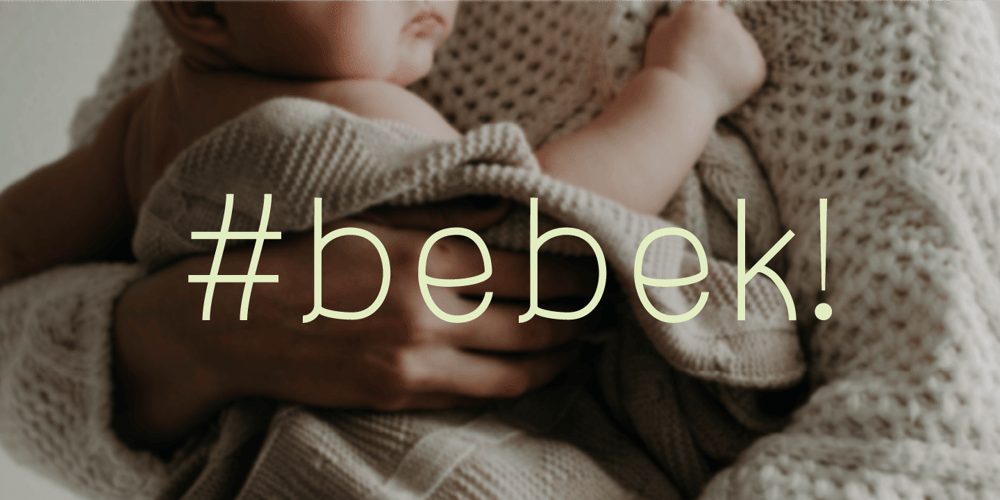
Bebek
Bebek font
Bebek Font Family was designed by Ali Güzel and published by Ali Güzel. Bebek contains 2 styles and family package options. Bebek is drawn on a classic geometric sans serif skeleton but applies baby moves. ‘Bebek’ gets its name from the Turkish word ‘baby’ because the font is as cute as a baby and full of surprises. Suggested uses: perfect for modern branding and logo design, editorial design, web design, packaging, and countless other projects;2 styles: 2 weights;Useful OpenType features: Access All Alternates, Small Capitals From Capitals, Case-Sensitive Forms, Glyph Composition / Decomposition, Denominators, Fractions, Kerning, Lining Figures, Localized Forms, Mark Positioning, Mark to Mark Positioning, Alternate Annotation Forms, Numerators, Oldstyle Figures, Ordinals, Proportional Figures, Stylistic Alternates, Small Capitals